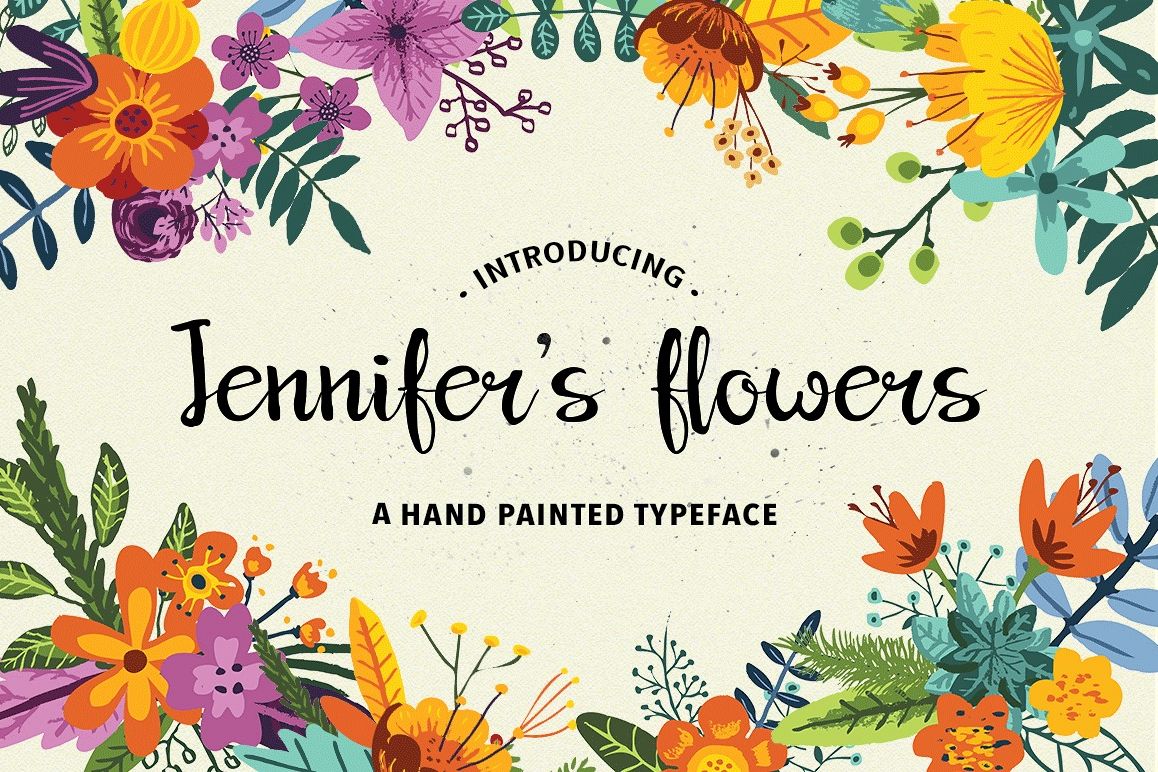
Jennifer's Flowers Script
Hello friends! Introducing my work "Jennifer's flowers". This is a hand painted and real good typeface. Works great applied to logos, prints, quotes, magazine headers, business cards and more!
This handwritten font is perfect for:
• logos
• prints
• quotes
• magazine headers
• business cards